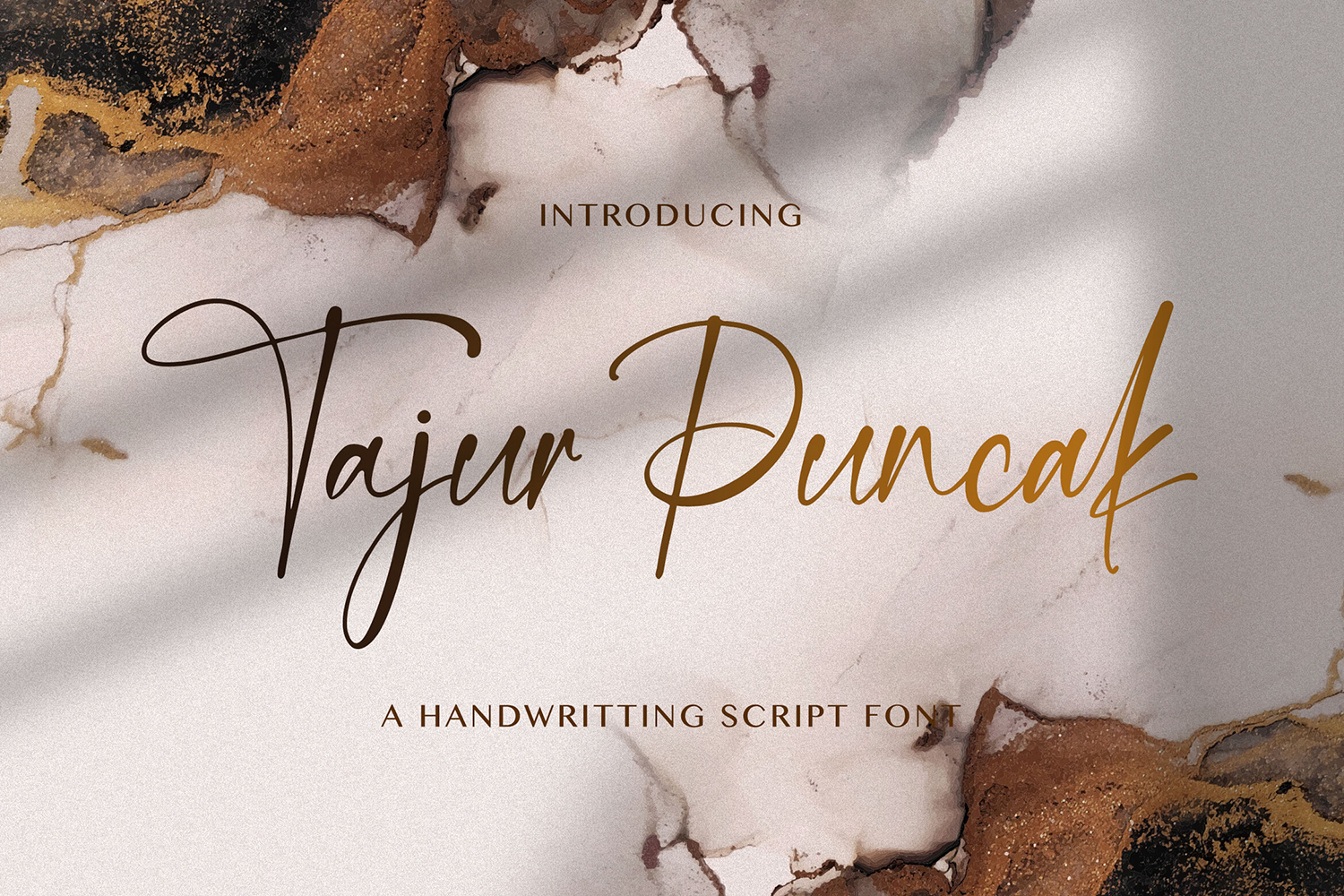
Tajur Puncak Free Font
Introducing Tajur Puncak Free Font, a refined and graceful handwritten font that effortlessly captures delicate elegance. With its exquisite and harmoniously balanced characters, Tajur Puncak seamlessly complements a vast array of design styles. Enhance your most imaginative concepts by incorporating Tajur Puncak and witness how it breathes life into your creations. Experience the captivating allure of Tajur Puncak as it infuses your designs with a sense of vibrancy and sophistication. Unleash your creativity and let Tajur Puncak bring your ideas to life in the most enchanting way. This free typeface was designed by a talented StringLabs Creative. If you like it don’t forget to check out the full version.